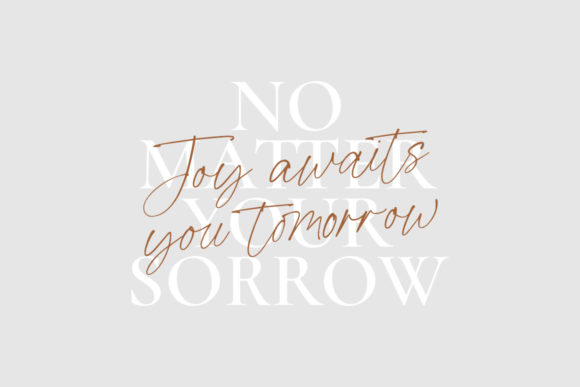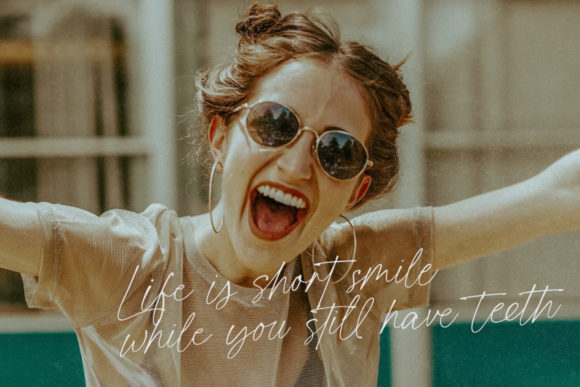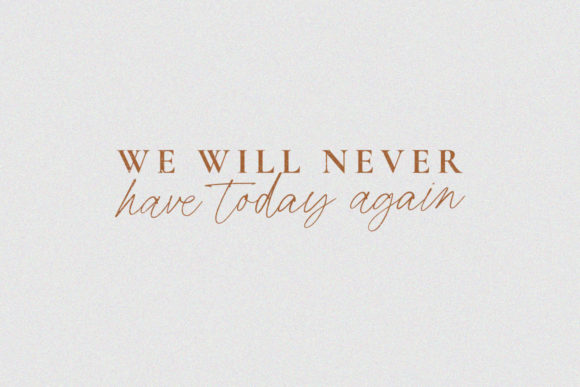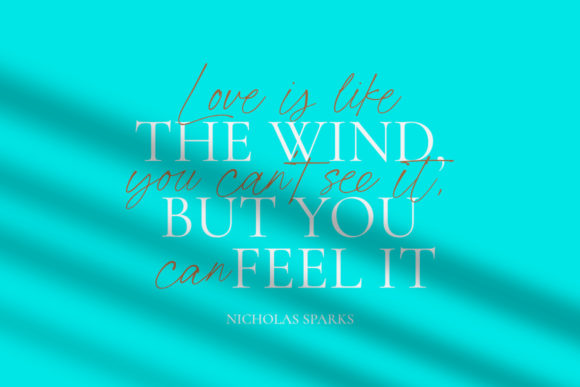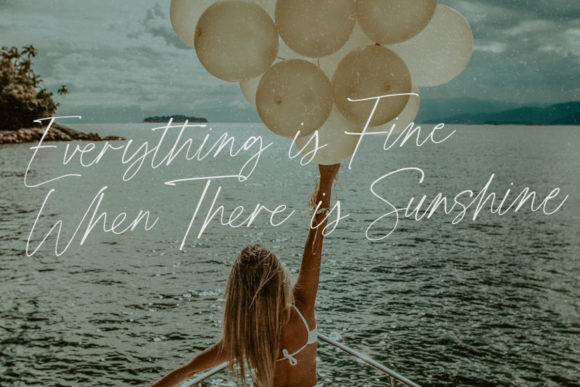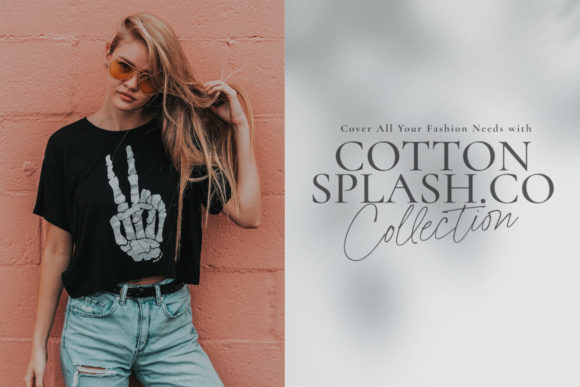
Introduction to Fallen Jones Font
Fallen Jones is a unique and elegant handwritten font.
It looks beautiful on a variety of designs requiring a personalized style, such as wedding invitations, thank you cards, weddings, greeting cards, logos and so on This font is PUA encoded which means you can access all of the glyphs and swashes with ease.
Key Features of Fallen Jones Font
Why Choose Fallen Jones Font?